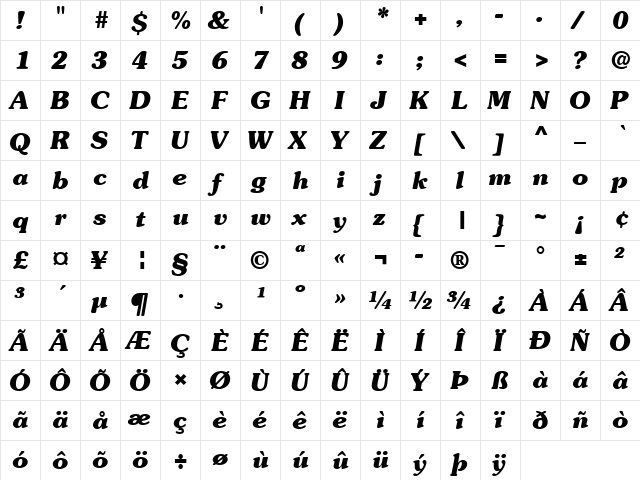
Souvenir LT Medium Bold Italic Font Preview
Design Context for Souvenir LT Medium Typeface
Souvenir LT Medium takes a measured approach to typography — its balanced proportions and neutral character make it a reliable workhorse for both digital and print work. Its italic angle brings a sense of urgency and motion to the letterforms. The heavy weight commands attention and anchors typographic hierarchies.
Pro Tip: Try Souvenir LT Medium for annotation and caption copy alongside an upright companion — the contrast in angle creates a dynamic but ordered typographic system.